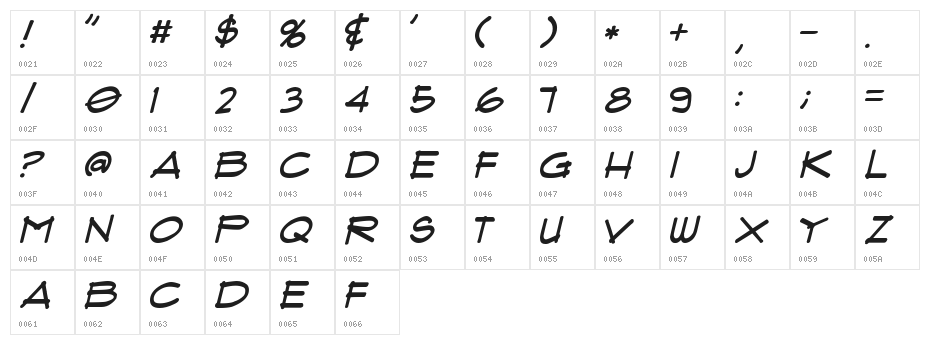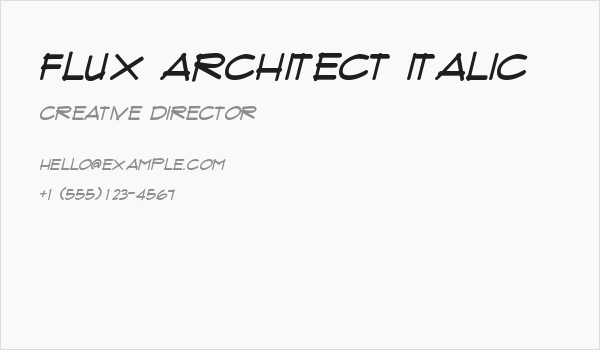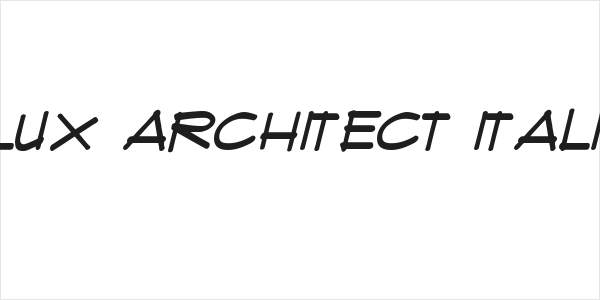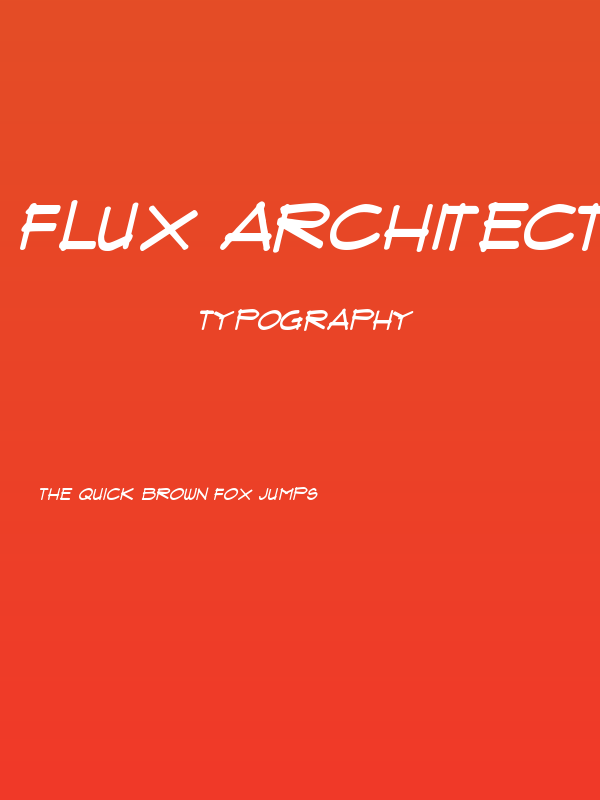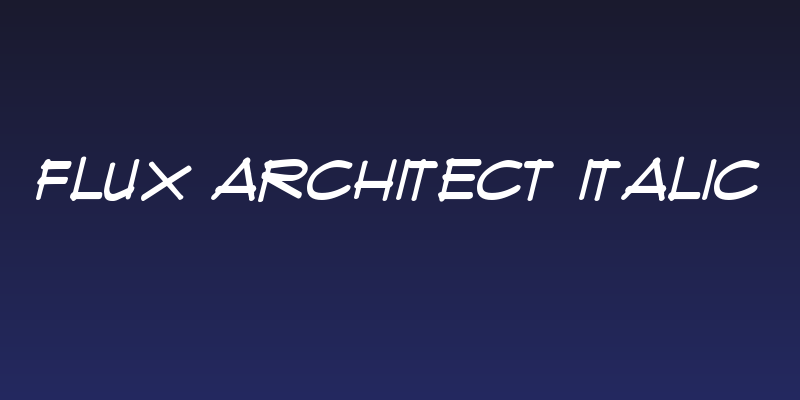
Flux Architect Italic Font
Flux Architect Italic Description
This font features a dynamic, italicized style with a handwritten appearance, characterized by its fluid and slightly slanted letterforms. The strokes are consistent in thickness, giving it a uniform look, while the rounded edges add a touch of softness. The uppercase and lowercase letters maintain a cohesive design, with a playful yet professional aesthetic. The numbers and special characters follow the same stylistic cues, ensuring a harmonious overall appearance. This font is versatile, suitable for both formal and informal contexts, and its distinctive style makes it stand out in various design applications.